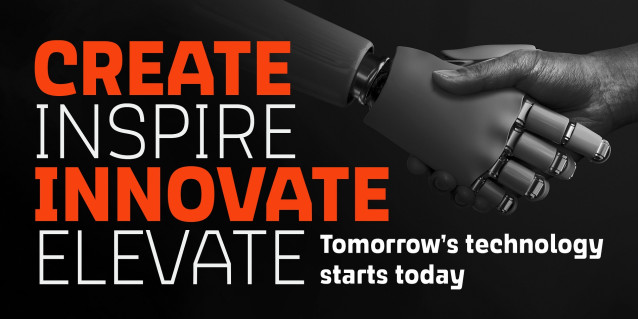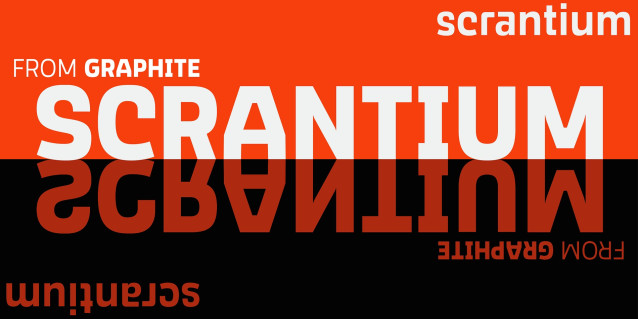
Scrantium Font Family
Scrantium Font Family is modern sans-serif type family with eight weights. Its subtly squared forms give it a sense of uniqueness, while striking a balance between a certain quirkiness and legibility. A generous x-height enhances clarity, making it a choice for a wide range of uses.
Whether its about making a statement with bold, attention-grabbing headlines or enhancing logo designs with style, Scrantium can do it with distinction and flair. It can bring a touch of sophistication to branding projects and ensures that even body text feels fresh and uniquely engaging.
It offers versatility and distinctness to a wide range of design projects and typographic uses.